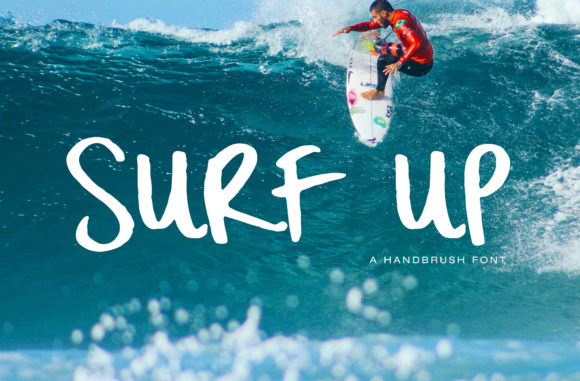
Surf Up Font
Dive into a sea of creativity with Surf Up, the enchanting script font crafted by Christine Teixeira. Embark on a typographic journey where the ocean breeze whispers through every letter, carrying a sense of tranquility and adventure. Let the curves of this hand-brushed font wash over your projects, adding a touch of coastal charm and outdoor spirit.
With Surf Up, your designs will ride the waves of inspiration. Its flowing lines evoke the rhythmic motion of ocean waves, while its organic, handwritten style captures the essence of sandy beaches and windswept dunes. Unleash your imagination and let the free-spirited energy of this font carry you to new design horizons.
Picture a sun-kissed logo that dances with the rhythm of the sea. Imagine a poster where the letters of Surf Up seem to have been painted with the colors of a sunset. Or envision a social media post that invites your audience to explore the depths of your creativity with a quote written in this captivating font.
Surf Up isn't just a font; it's a gateway to a world of boundless creativity. With its beachy vibes and outdoorsy charm, it adds a touch of magic to branding, packaging, posters, social media, and more. Let your designs catch the wave of inspiration and make a lasting impression on your audience.
Join the wave of creativity with Surf Up and let your designs make a splash. Dive into the ocean of possibilities and let the beauty of this hand-brushed font guide you towards extraordinary design outcomes.